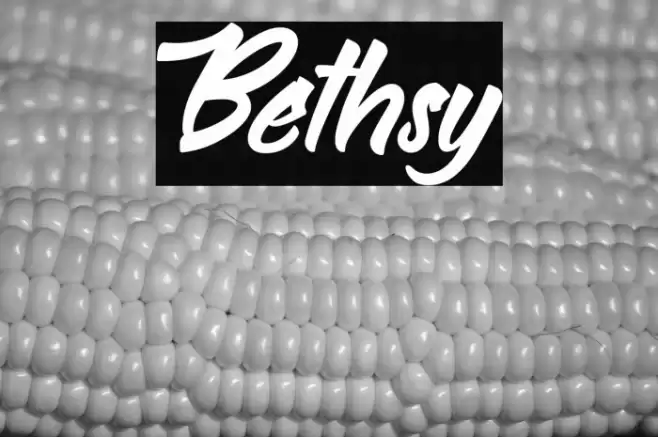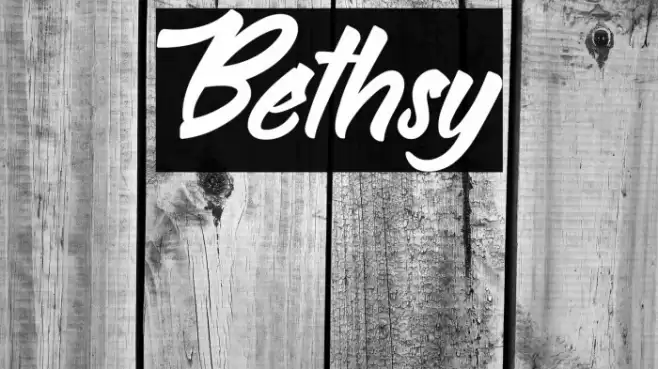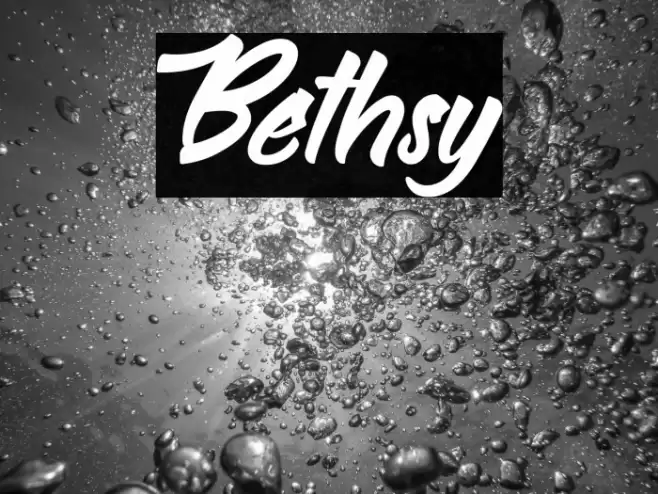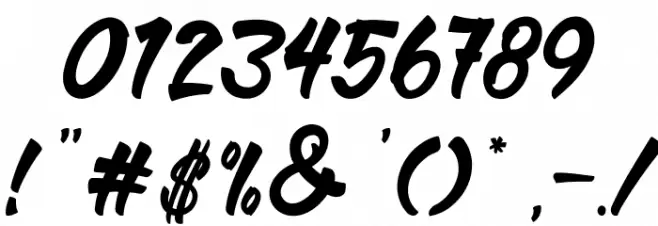
Bethsy Font
Bethsy Description
This font features a bold, expressive script style with a dynamic and energetic flow. The letters are connected in a cursive manner, giving it a handwritten appearance. The strokes are thick and consistent, providing a strong visual impact. The uppercase letters are slightly more elaborate, while the lowercase letters maintain a smooth and fluid form. Numbers and special characters are designed to match the overall style, ensuring cohesion across all elements. This font is ideal for creating eye-catching designs that require a personal touch.
A bold, expressive script font with a dynamic, handwritten style from Uncategorized fonts.
- Proposed Projects: Ideal for branding, logos, invitations, and any project that requires a personal, artistic touch.
- Character Spacing: Tight
- Use Case: Logos, Headlines, Invitations